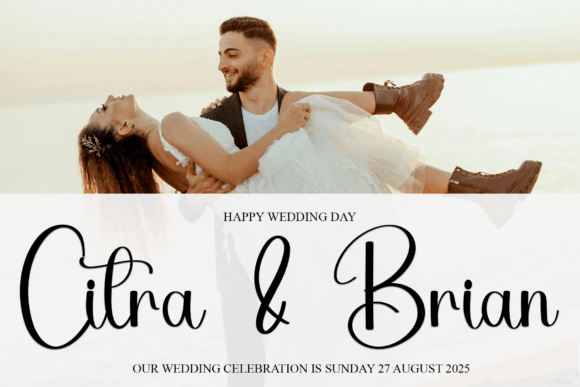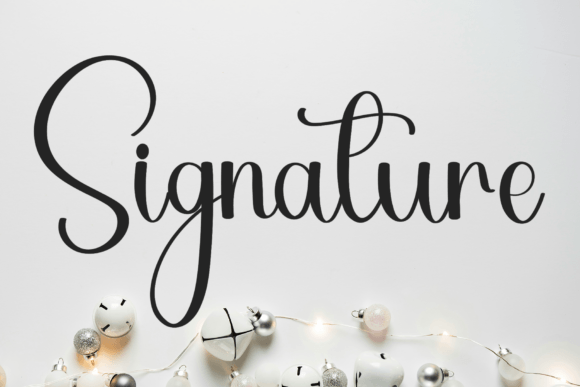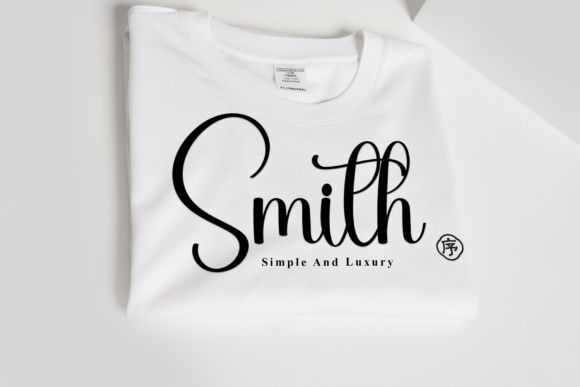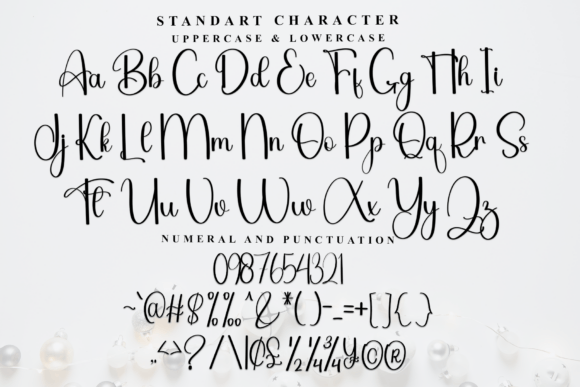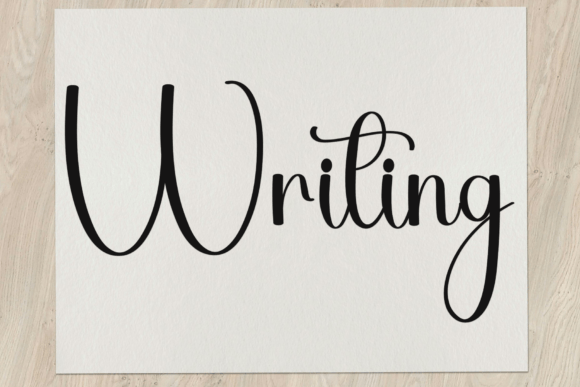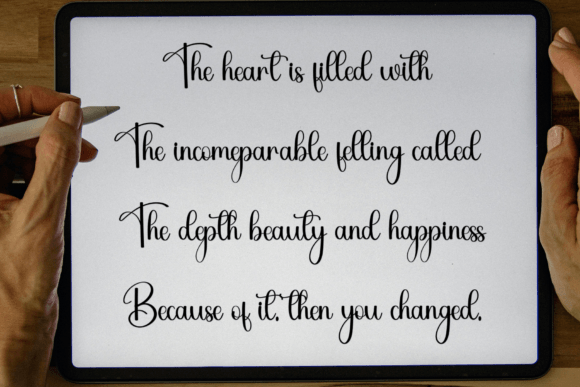
The Bigday Font: Elevate Your Designs with Elegance and Sophistication
I’ll never forget the moment I stumbled upon the perfect font for a client’s wedding invitation project. I had been searching for hours, trying out different fonts, but none seemed to capture the essence of the couple’s special day. That was until I discovered Bigday Font – a game-changer in the world of typography. In this article, I’ll share my experience with Bigday Font, its features, and how to make the most of it in your designs.
A Personal Review: What I Love About Bigday Font
Bigday Font is a stylish, beautiful, and elegant font that exudes a contemporary atmosphere and impeccable form. Inspired by timeless classic calligraphy, this font is balanced and varied, making it perfect for enhancing the beauty of your projects.
- ✨ PUA encoded: Easy access to amazing glyphs and ligatures
- ✅ Contemporary atmosphere: Perfect for modern designs that require a touch of elegance
- 💫 Elegant and refined: Adds a touch of sophistication to any project
- 📝 Balanced and varied: Offers a range of styles to suit different design needs
While Bigday Font is an excellent choice for many design projects, there are a few things to keep in mind:
- 🤔 Learning curve: It may take some time to get familiar with the font’s features and glyphs
Bigday Font was inspired by the timeless beauty of classic calligraphy. The designer aimed to create a font that would capture the essence of elegance and sophistication, while also being versatile and easy to use. The result is a font that is both modern and refined, perfect for a wide range of design projects.
| What is Bigday Font? | Bigday Font is a stylish, beautiful, and elegant font with a contemporary atmosphere and impeccable form, inspired by timeless classic calligraphy. |
| Is Bigday Font PUA encoded? | Yes, Bigday Font is PUA encoded, making it easy to access amazing glyphs and ligatures. |